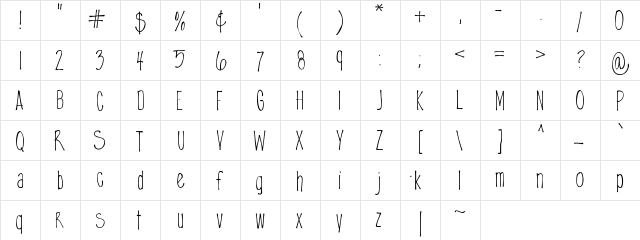
CleanMess Medium
Design Context for CleanMess Typeface
CleanMess is a composed and adaptable typeface that performs quietly and consistently across a wide range of design contexts.
Pro Tip: Use CleanMess in both headline and body roles to test its range before committing to a single application.